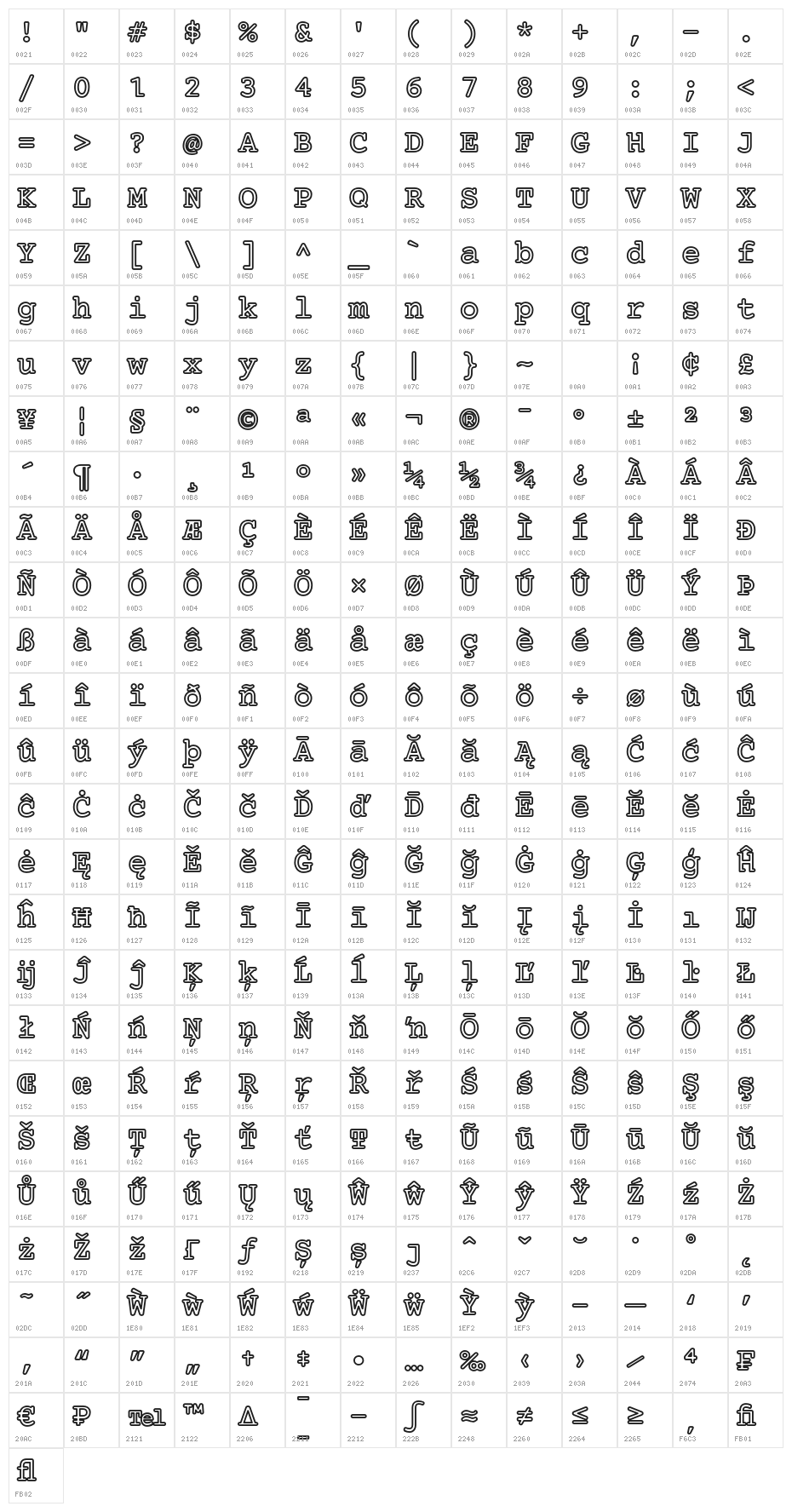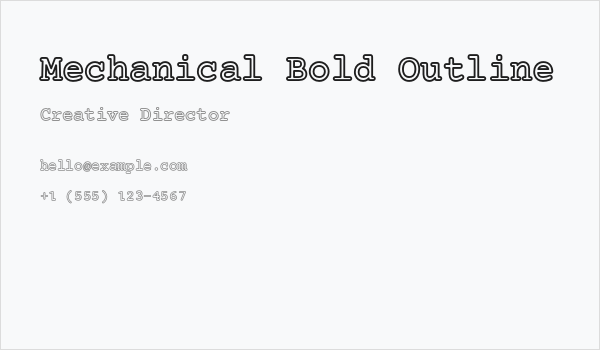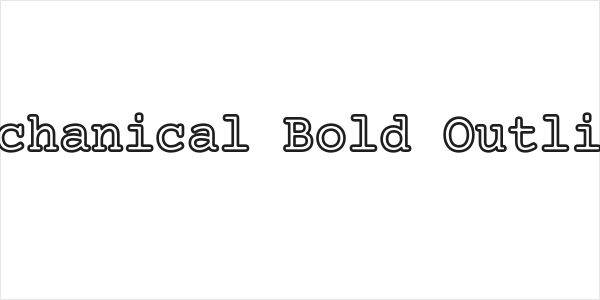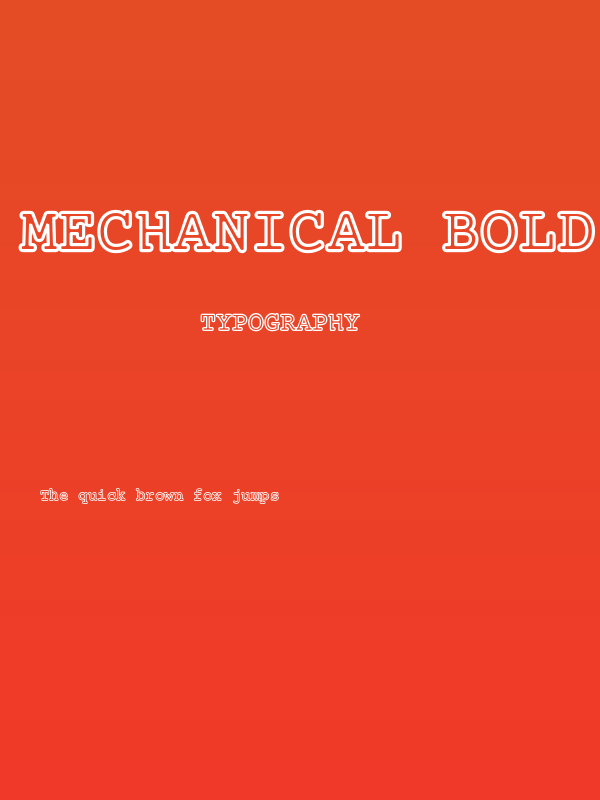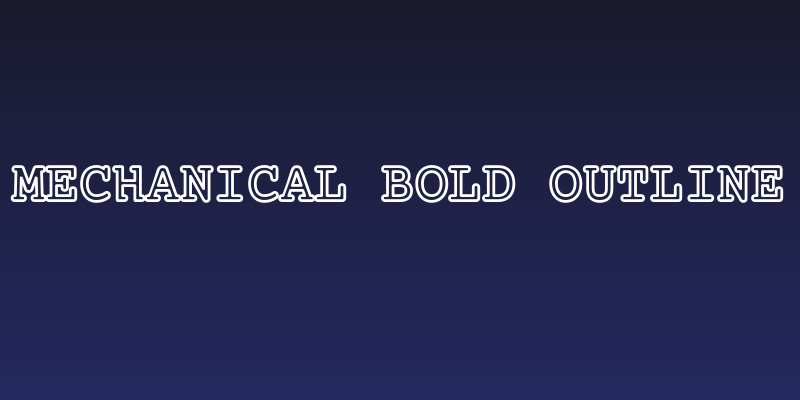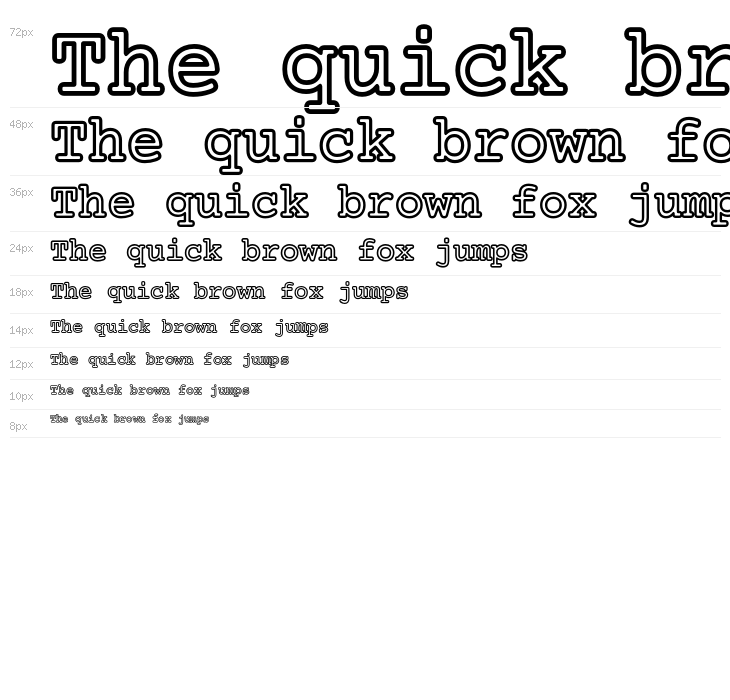
Mechanical Bold Outline Font
Mechanical Bold Outline Description
This font features a bold, mechanical style with a distinct outline that gives it a strong, industrial appearance. The uppercase and lowercase letters are consistent in their geometric design, with rounded edges and a uniform stroke width that enhances readability. The numerals and special characters maintain the same bold outline, ensuring a cohesive look across all elements. The font's mechanical nature is emphasized by its structured and precise form, making it ideal for projects that require a modern and technical aesthetic.
| Proposed Projects | Ideal for branding, posters, signage, and any project requiring a modern, technical look. |